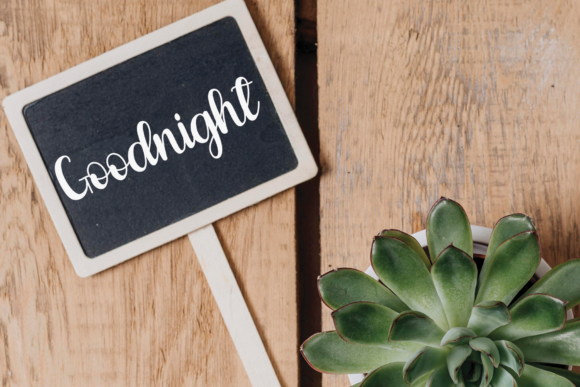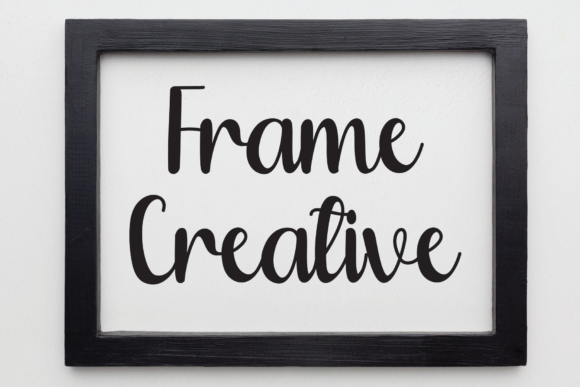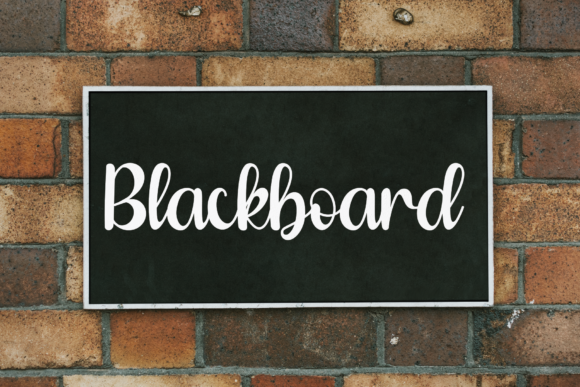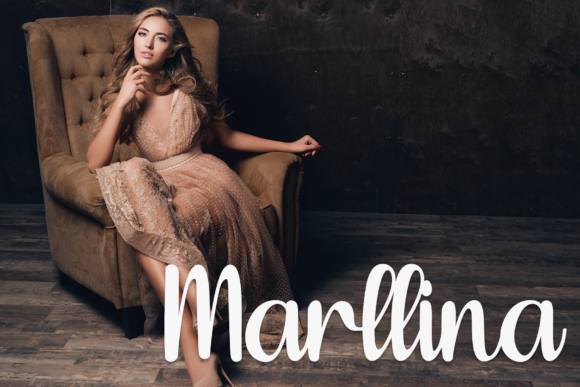
Introducing Farmhouse Font: Elevate Your Designs with Elegance and Sophistication
In the world of typography, fonts play a crucial role in conveying the tone and aesthetic of a design. For designers and crafters seeking a script font that exudes elegance and contemporary charm, Farmhouse Font is an exceptional choice. This beautiful font boasts a perfect balance of form and function, making it an ideal addition to any project.
A Perfect Balance of Style and Versatility
Farmhouse Font is an elegant script font that strikes a perfect balance between modern sophistication and classic charm. Its contemporary feel ensures that your designs look fresh and up-to-date, while its elegant lines and curves add a touch of refinement. The font’s balanced and varied strokes are neither too thin nor too thick, creating a harmonious visual flow that enhances the beauty of your projects.
- Elegant Script Style: Farmhouse Font features a beautiful, flowing script style that adds a touch of sophistication to any design.
- Contemporary Feel: The font’s modern aesthetic ensures that your designs look fresh and current.
- Balanced and Varied: The font’s strokes are carefully crafted to create a perfect balance between thin and thick lines, resulting in a harmonious visual flow.
- Perfect for a Variety of Projects: Farmhouse Font is versatile and can be used for a range of projects, including branding, packaging, wedding invitations, and more.
Why Choose Farmhouse Font?
With so many fonts available, why choose Farmhouse Font for your next project? Here are just a few reasons:
- Unique and Memorable: Farmhouse Font’s elegant script style ensures that your designs stand out from the crowd and leave a lasting impression.
- Easy to Read: The font’s clear and balanced design makes it easy to read, even at small sizes.
- Highly Versatile: Farmhouse Font can be used for a wide range of projects, from formal events to everyday branding.
- Time-Saving: With Farmhouse Font, you can create stunning designs in no time, thanks to its carefully crafted and refined aesthetic.
How to Use Farmhouse Font in Your Designs
Farmhouse Font is incredibly easy to use and can be incorporated into your designs in a variety of ways:
- Branding and Logo Design: Use Farmhouse Font to create a memorable and elegant logo that reflects your brand’s personality.
- Wedding Invitations and Stationery: Add a touch of sophistication to your wedding invitations, stationery, and other paper goods with Farmhouse Font.
- Packaging Design: Use Farmhouse Font to create eye-catching packaging that stands out on store shelves.
- Digital Design: Farmhouse Font can also be used for digital designs, such as social media graphics, website headers, and more.
Farmhouse Font is a stunning script font that offers the perfect blend of elegance, sophistication, and versatility. With its balanced and varied strokes, contemporary feel, and elegant lines, this font is sure to elevate the beauty of your projects. Whether you’re a designer or crafter, Farmhouse Font is an excellent choice for anyone seeking a high-quality font that will make their designs shine.